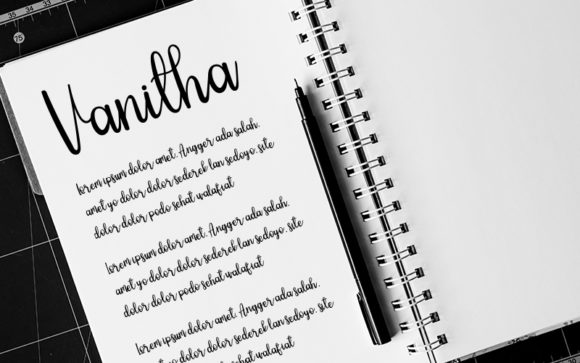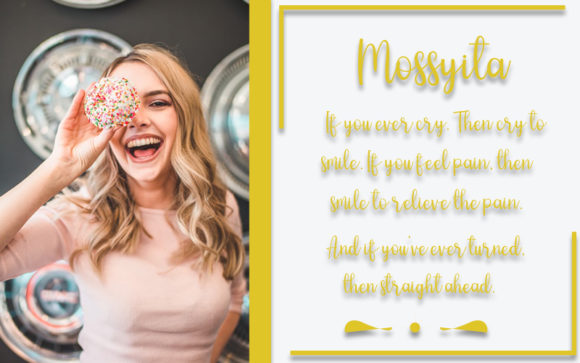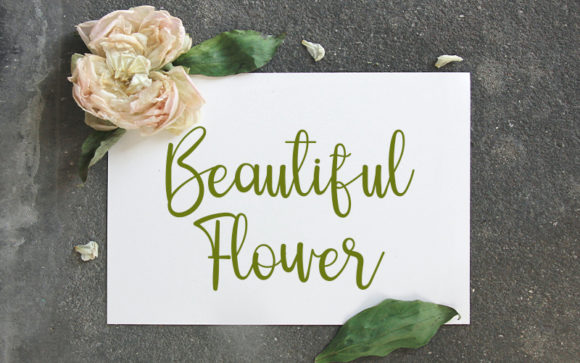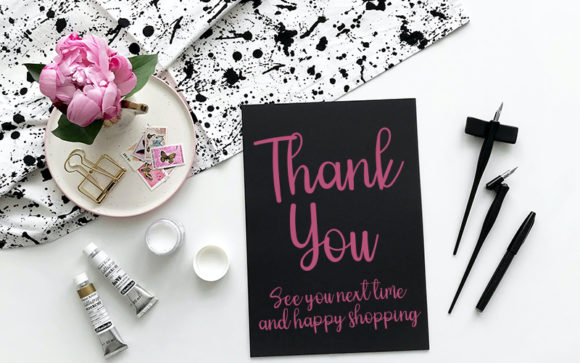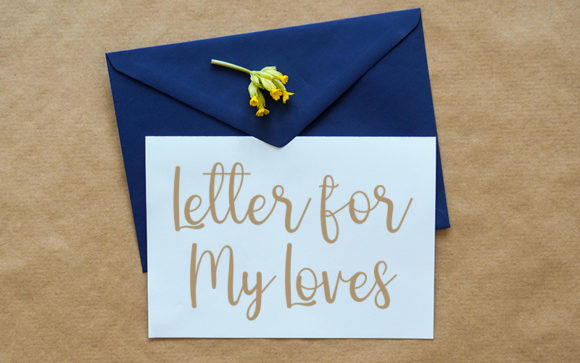
Sahitna Font
About Sahitna Font
Sahitna is a font that exudes neatness and playfulness in its script design. With its sweet and lively style, this font is a wonderful choice for adding a touch of brightness and joy to your designs.
The neat and playful script style of Sahitna brings a sense of tidiness and fun to your creations. Each letter carries the artistic and lively touch of script writing, making your work stand out with a touch of contemporary flair and charm.
With Sahitna as your creative tool, you have the freedom to explore various design ideas. Its versatility allows it to seamlessly brighten up your projects, infusing them with a sense of sweetness and liveliness.
Embrace the sweet and full of life vibe of Sahitna and witness how it transforms your designs into captivating and joyful works of art. Its script appearance adds a touch of authenticity, making your creations truly eye-catching and filled with a sense of playfulness and creativity.
Whether you’re working on social media posts, invitations, or any other project that calls for a playful touch, Sahitna is the font that adds that extra flair and appeal to your creations. Embrace its sweet and lively style and let it be the font that sparks your inspiration and enhances your designs with its neat and playful script appearance.
Experience the magic of Sahitna and witness how it brightens up your creative projects, making them truly exceptional and filled with a sense of brightness and joy. Let Sahitna be the font that brings life to your designs and turns them into wonderful and delightful pieces of art.